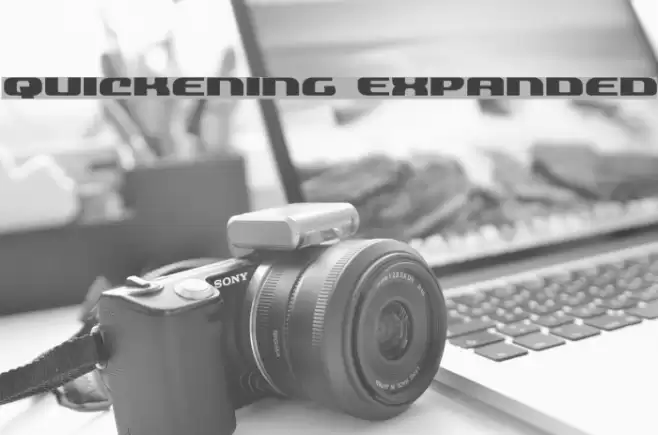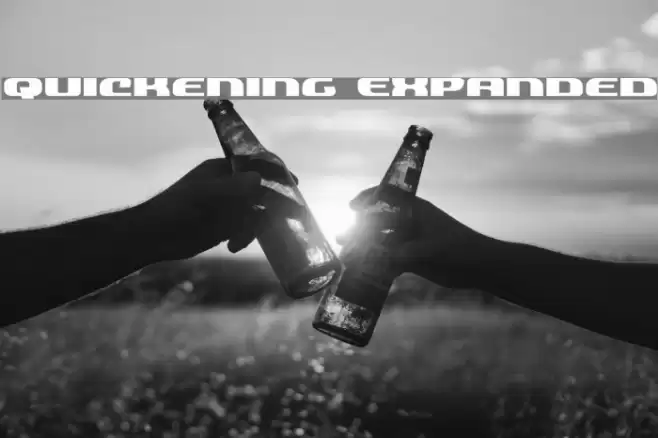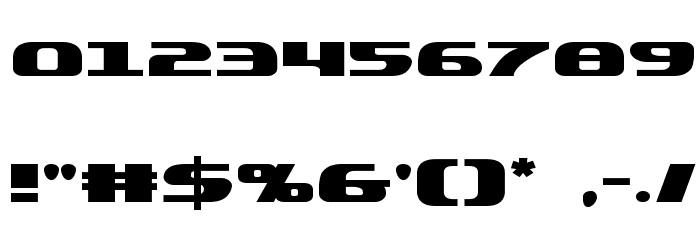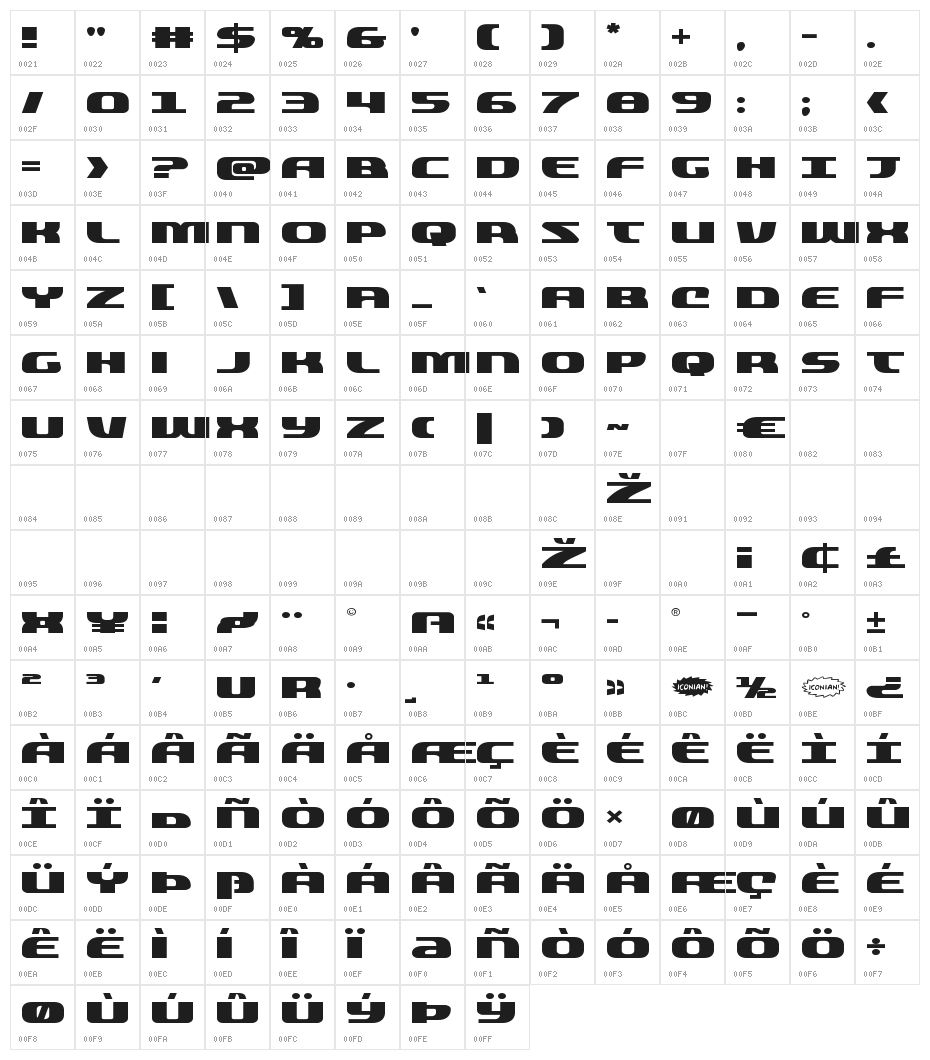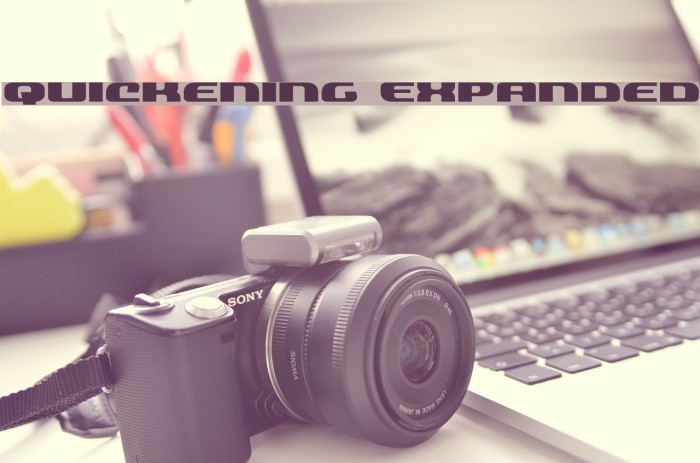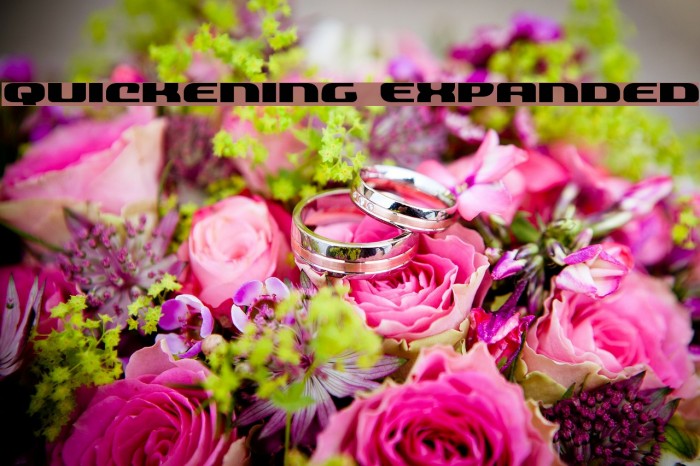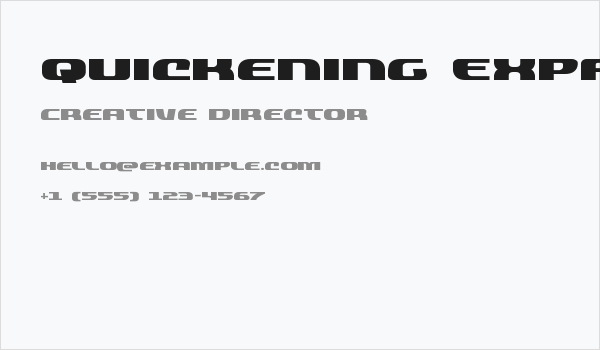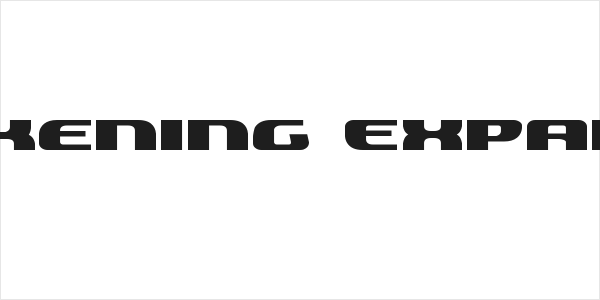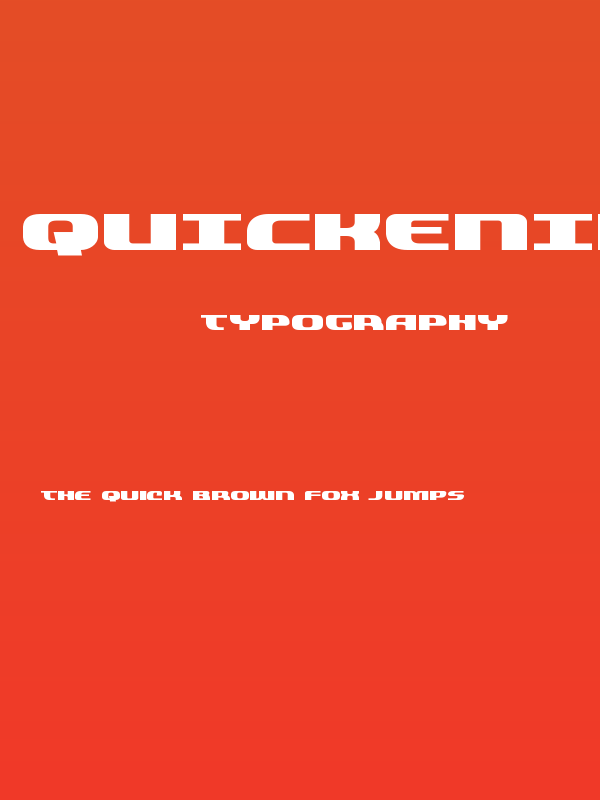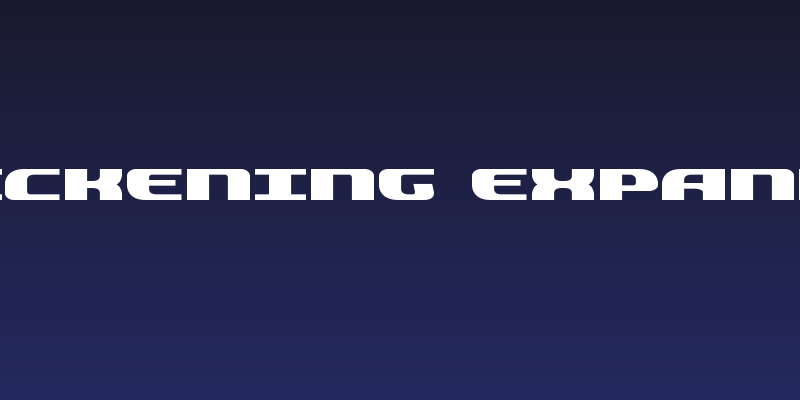
Quickening Expanded Font
Quickening Expanded Description
This font features a bold and futuristic design with expanded letterforms that create a strong visual impact. The characters are wide and have a geometric structure, giving them a modern and dynamic appearance. The uppercase and lowercase letters maintain a consistent style, with sharp angles and clean lines. The numerals and special characters complement the overall aesthetic, making it suitable for attention-grabbing headlines and titles. The font's unique style is ideal for projects that require a bold and contemporary look.
A bold, futuristic font with expanded, geometric letterforms from Uncategorized fonts.
- Proposed Projects: Ideal for sci-fi themed designs, technology branding, video game titles, and modern advertising.